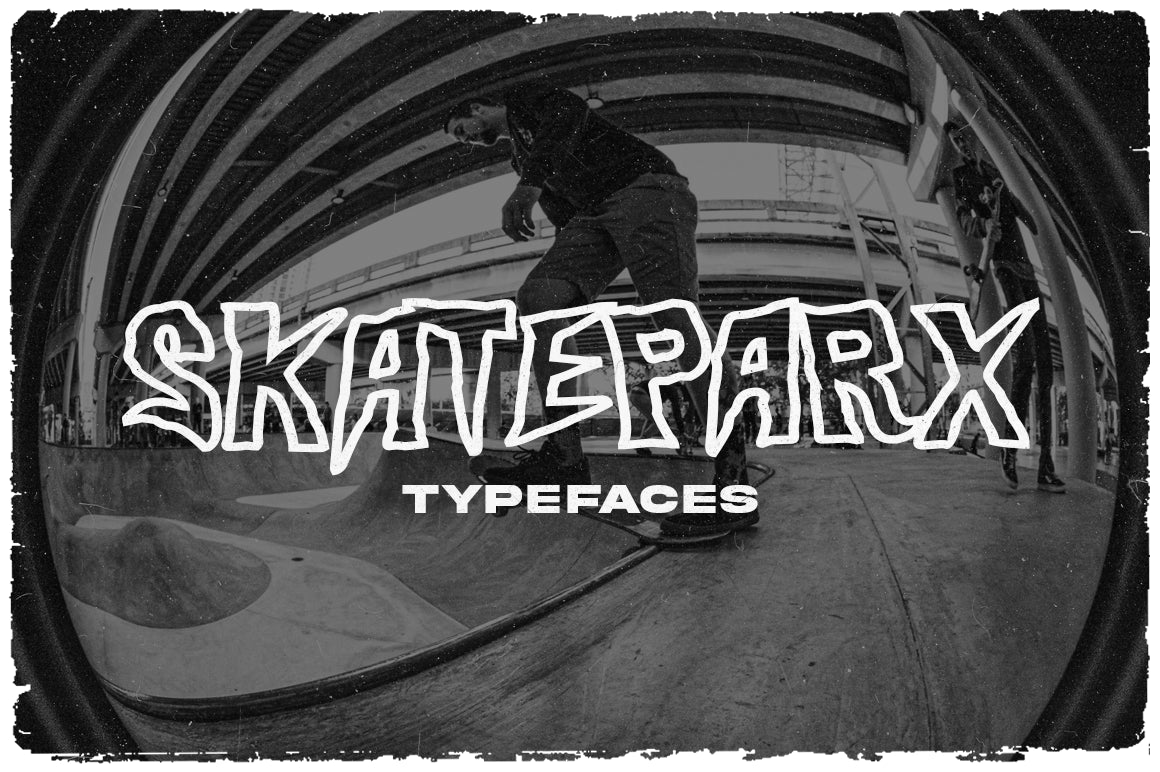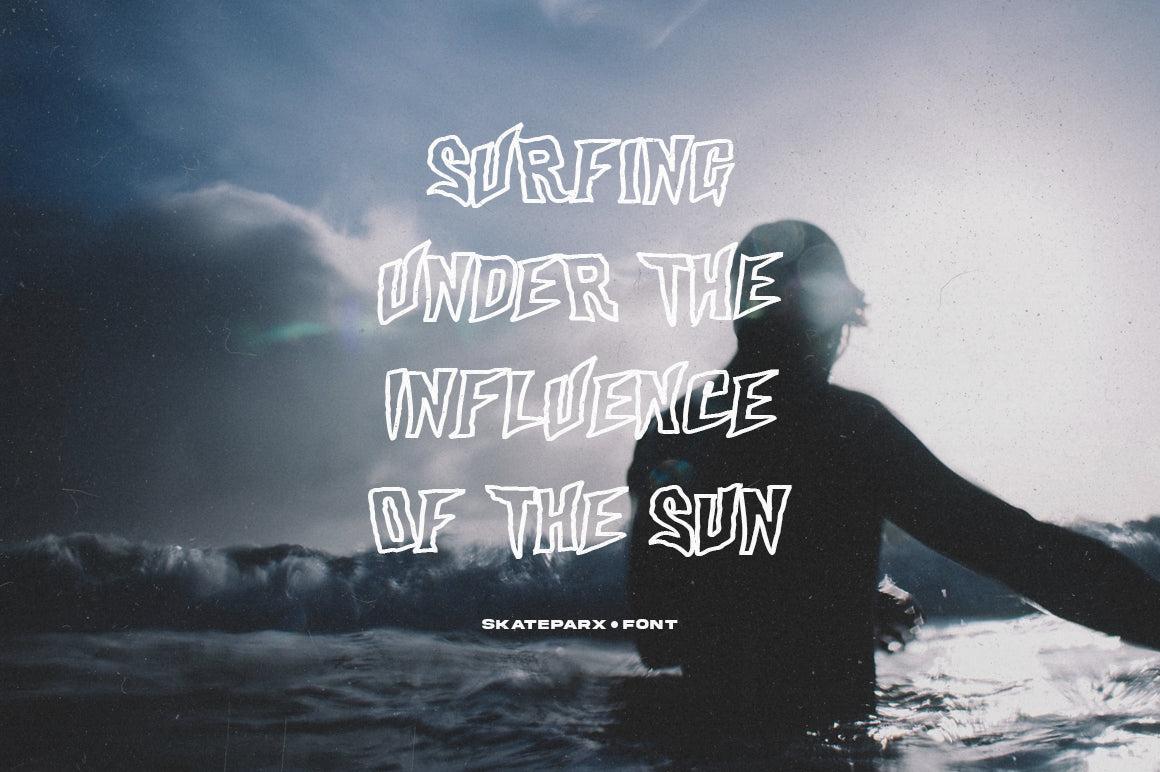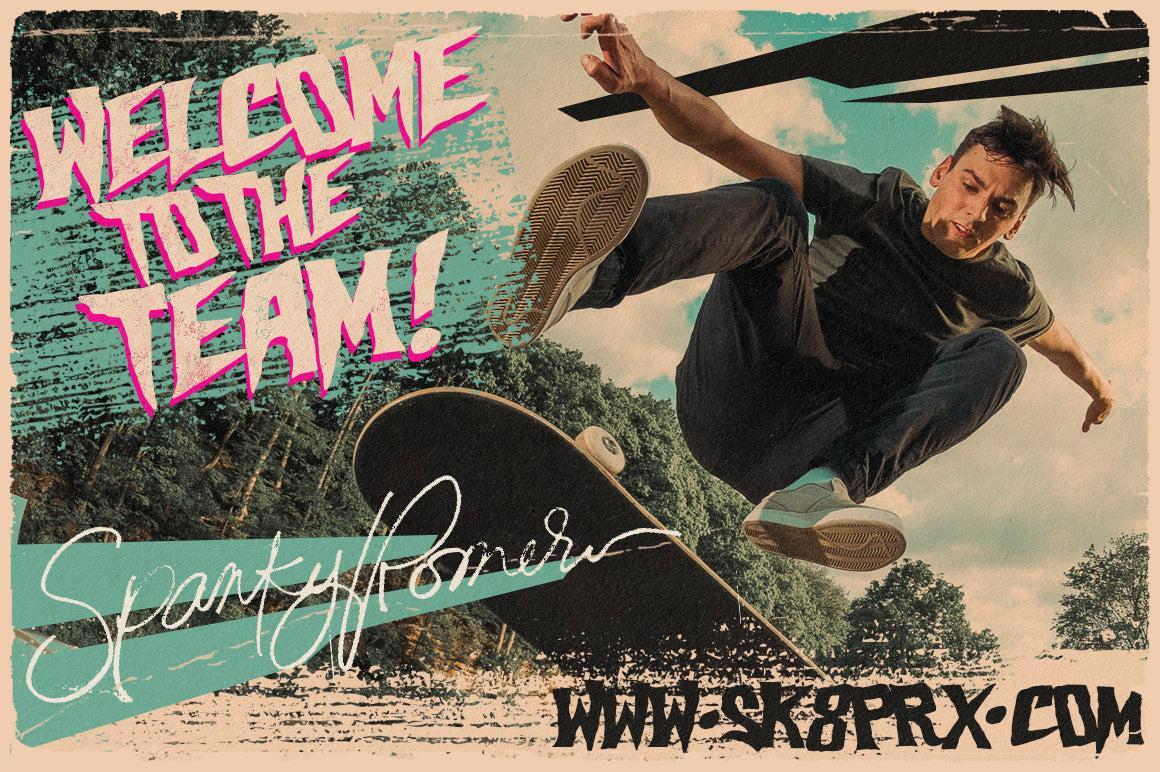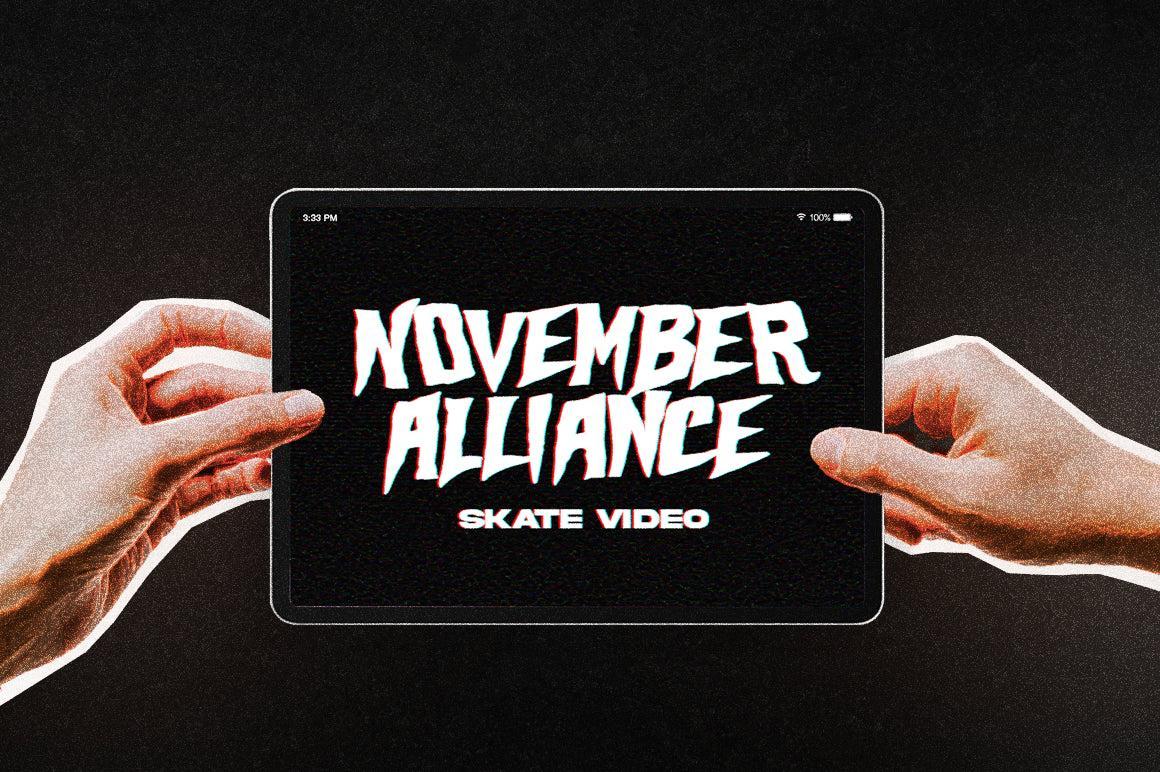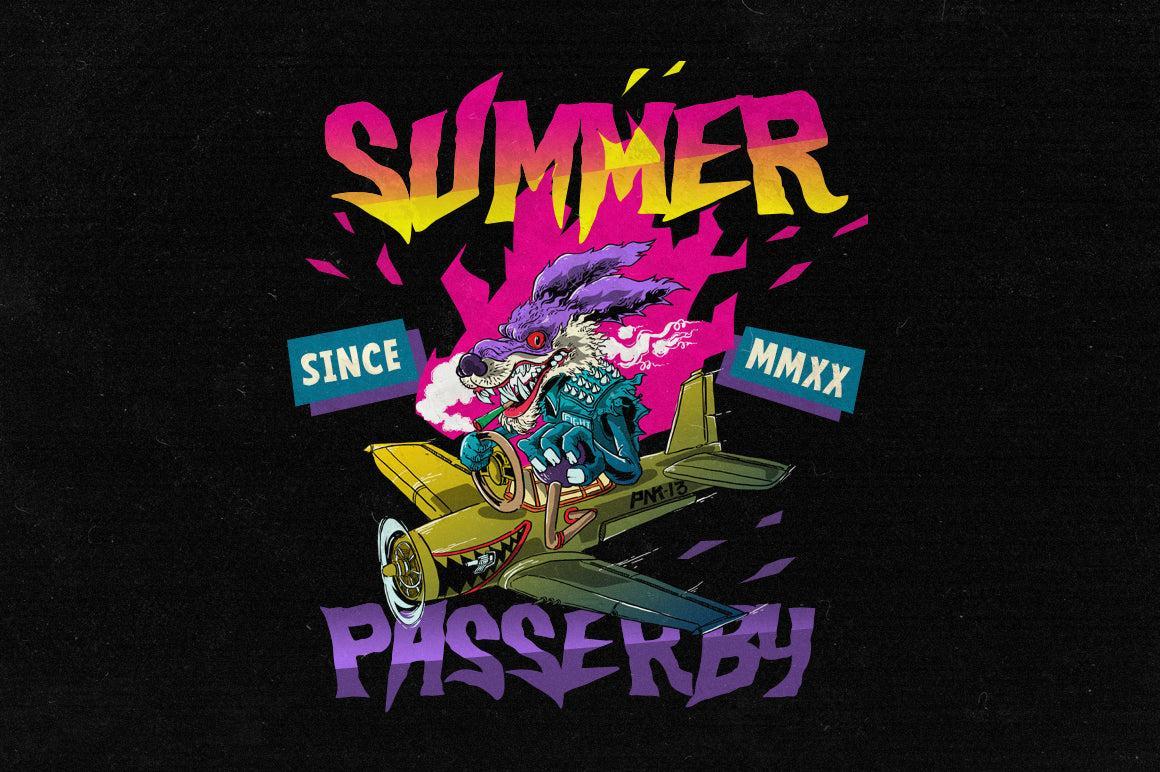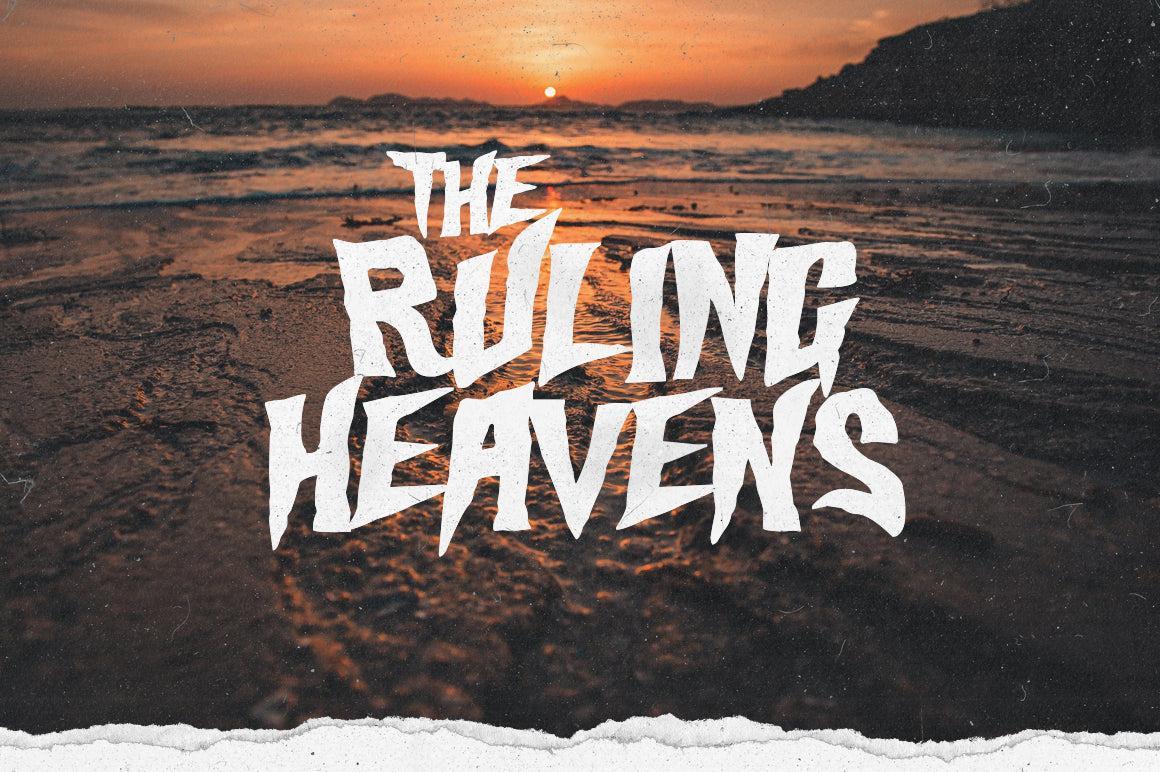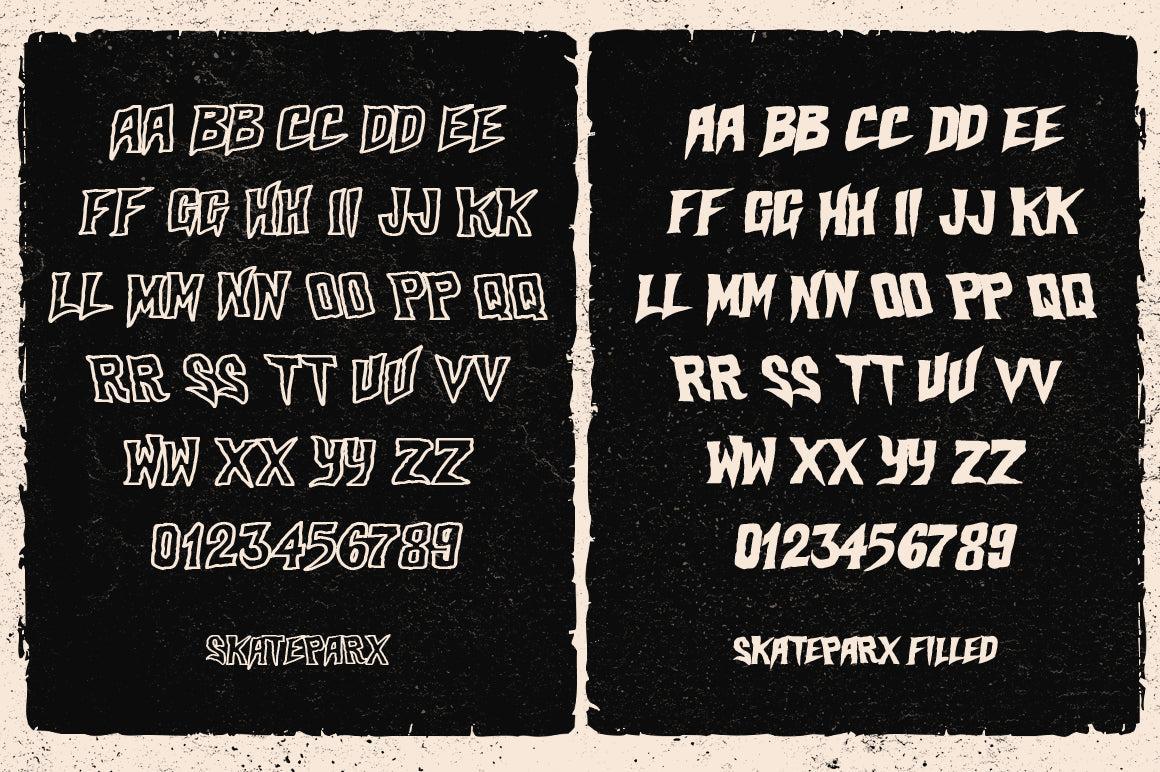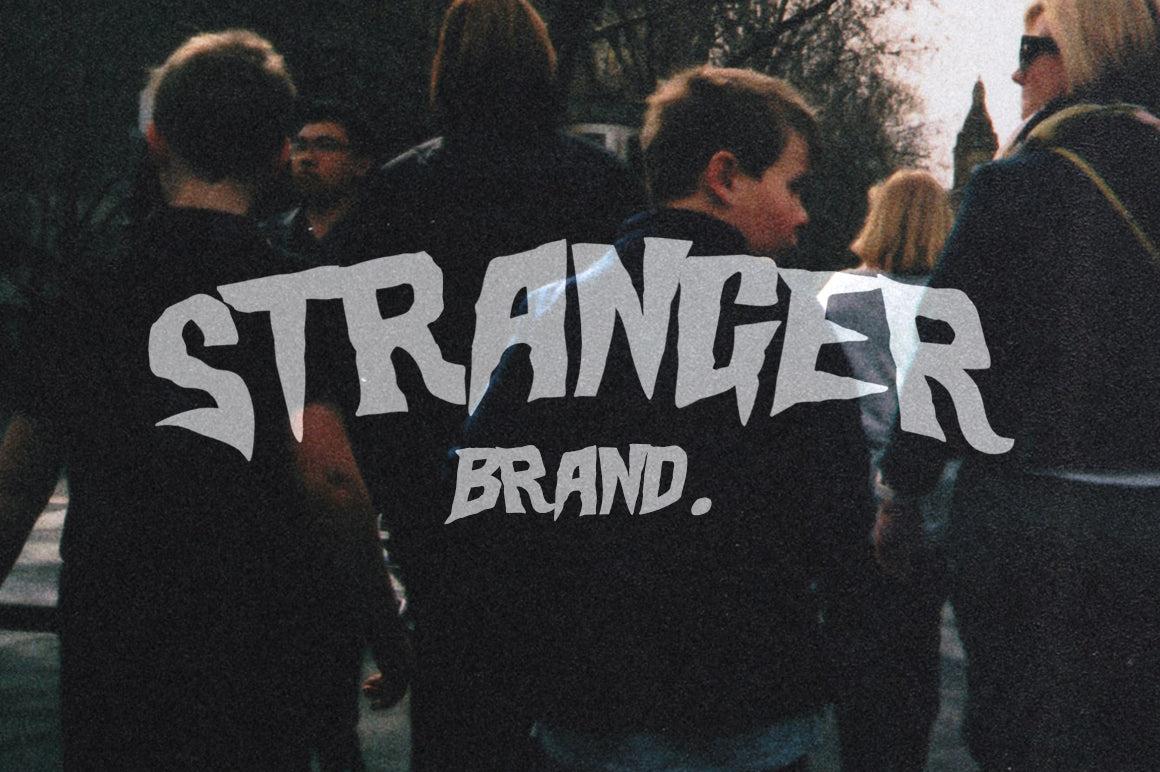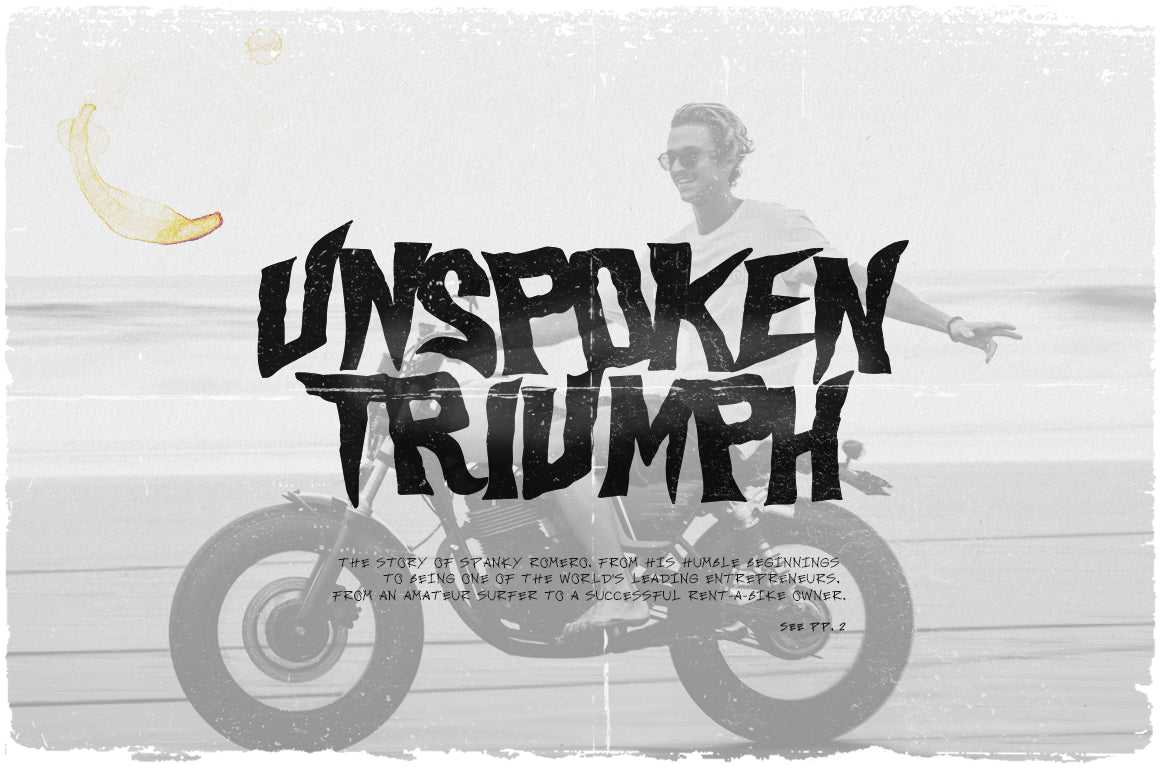
Skateparx Typeface
Skateparx Typeface is an old-school font designed for modern branding, featuring uneven weights with a uniform baseline. It includes Skateparx Outline Regular and Skateparx Filled in OTF, TTF, and WOFF formats, and allows access to alternate glyphs by toggling the shift key while typing.
Ideal for vintage-inspired graphic design and retro branding. Perfect for posters, skateboarding apparel, and album covers, ensuring a nostalgic aesthetic that captures the essence of old-school sports culture.